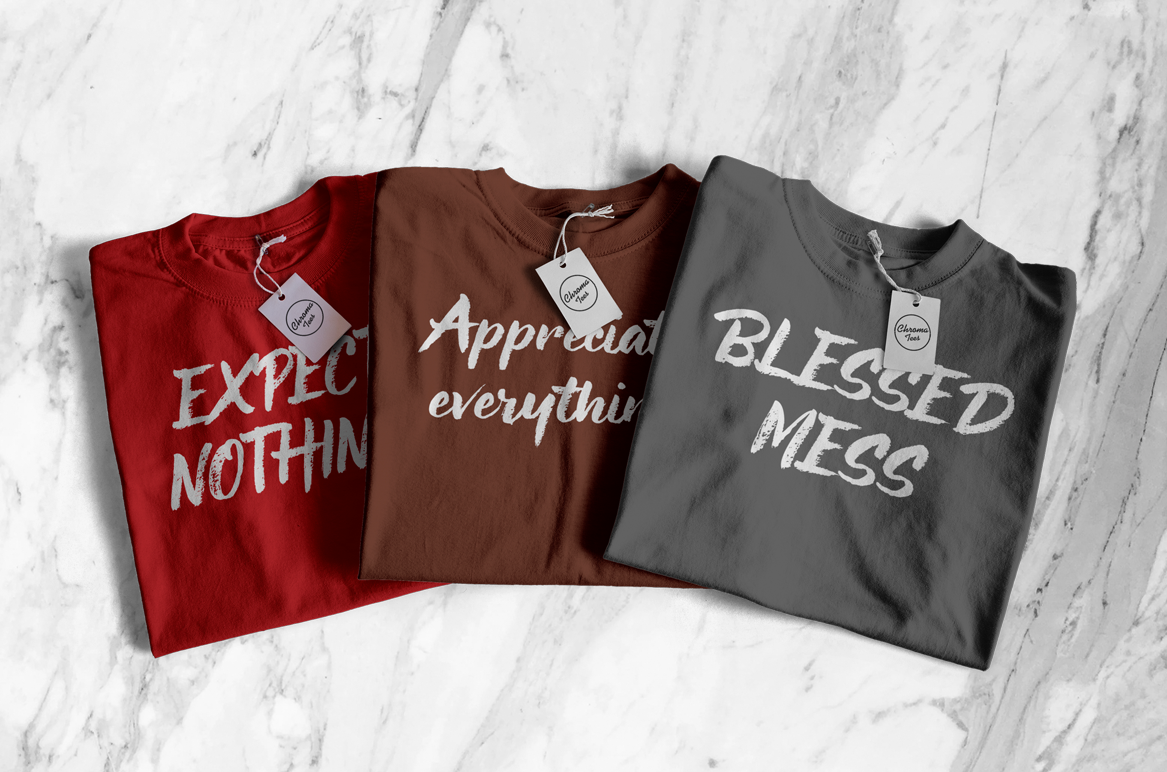
Buree Chalk Regular Font Free Download . Buree chalk (otf/ttf/woff) works on. A great choice for highlighting your design elements. You can download the buree chalk font to your. buree chalk is a unique handwritten font with a chalk texture. buree chalk is a unique handwritten font with a chalk texture. Fall in love with it and bring your projects to the. buree chalk regular font free download. Fall in love with it and bring your projects to the highest levels! free download of buree chalk font. buree chalk font family designed by nurf designs has a total of 1 different styles. buree chalk font is a unique handwritten.
buree chalk font is a unique handwritten. Fall in love with it and bring your projects to the. buree chalk is a unique handwritten font with a chalk texture. Fall in love with it and bring your projects to the highest levels! Buree chalk (otf/ttf/woff) works on. You can download the buree chalk font to your. A great choice for highlighting your design elements. buree chalk is a unique handwritten font with a chalk texture. buree chalk font family designed by nurf designs has a total of 1 different styles. buree chalk regular font free download.
Buree Chalk Regular Font Free Download free download of buree chalk font. Fall in love with it and bring your projects to the highest levels! You can download the buree chalk font to your. Buree chalk (otf/ttf/woff) works on. buree chalk is a unique handwritten font with a chalk texture. buree chalk font family designed by nurf designs has a total of 1 different styles. buree chalk font is a unique handwritten. free download of buree chalk font. A great choice for highlighting your design elements. buree chalk is a unique handwritten font with a chalk texture. buree chalk regular font free download. Fall in love with it and bring your projects to the.
Buree Chalk Font Nurf Designs FontSpace Buree Chalk Regular Font Free Download free download of buree chalk font. buree chalk is a unique handwritten font with a chalk texture. buree chalk font is a unique handwritten. buree chalk regular font free download. Fall in love with it and bring your projects to the. Buree chalk (otf/ttf/woff) works on. buree chalk font family designed by nurf designs has. Buree Chalk Regular Font Free Download.
Download Buree Chalk Personal Use font Buree Chalk Regular Font Free Download free download of buree chalk font. buree chalk regular font free download. buree chalk is a unique handwritten font with a chalk texture. buree chalk font family designed by nurf designs has a total of 1 different styles. You can download the buree chalk font to your. Fall in love with it and bring your projects. Buree Chalk Regular Font Free Download.
Buree Chalk Regular Baixar Fonte Grátis MaisFontes Buree Chalk Regular Font Free Download Fall in love with it and bring your projects to the. Fall in love with it and bring your projects to the highest levels! free download of buree chalk font. buree chalk is a unique handwritten font with a chalk texture. You can download the buree chalk font to your. Buree chalk (otf/ttf/woff) works on. buree chalk. Buree Chalk Regular Font Free Download.
Download Buree Chalk Personal Use font Buree Chalk Regular Font Free Download buree chalk font family designed by nurf designs has a total of 1 different styles. Buree chalk (otf/ttf/woff) works on. buree chalk is a unique handwritten font with a chalk texture. buree chalk regular font free download. free download of buree chalk font. You can download the buree chalk font to your. Fall in love with. Buree Chalk Regular Font Free Download.
Broken Chalk Font Buree Chalk Regular Font Free Download buree chalk regular font free download. buree chalk font is a unique handwritten. buree chalk is a unique handwritten font with a chalk texture. A great choice for highlighting your design elements. You can download the buree chalk font to your. Fall in love with it and bring your projects to the. Buree chalk (otf/ttf/woff) works on.. Buree Chalk Regular Font Free Download.
11 Chalk Block Font Images Best Chalkboard Fonts, Free Chalkboard Buree Chalk Regular Font Free Download Fall in love with it and bring your projects to the. buree chalk font is a unique handwritten. Fall in love with it and bring your projects to the highest levels! A great choice for highlighting your design elements. Buree chalk (otf/ttf/woff) works on. buree chalk is a unique handwritten font with a chalk texture. free download. Buree Chalk Regular Font Free Download.
Buree Chalk Font » Free Download Vector Stock Image Icon Buree Chalk Regular Font Free Download free download of buree chalk font. Buree chalk (otf/ttf/woff) works on. buree chalk regular font free download. buree chalk font is a unique handwritten. buree chalk is a unique handwritten font with a chalk texture. Fall in love with it and bring your projects to the highest levels! You can download the buree chalk font to. Buree Chalk Regular Font Free Download.
Chalkboard Regular font Buree Chalk Regular Font Free Download A great choice for highlighting your design elements. Fall in love with it and bring your projects to the. Fall in love with it and bring your projects to the highest levels! buree chalk regular font free download. buree chalk is a unique handwritten font with a chalk texture. buree chalk font is a unique handwritten. . Buree Chalk Regular Font Free Download.
Chalkboard Regular font details Buree Chalk Regular Font Free Download buree chalk font family designed by nurf designs has a total of 1 different styles. Fall in love with it and bring your projects to the highest levels! Buree chalk (otf/ttf/woff) works on. You can download the buree chalk font to your. buree chalk regular font free download. Fall in love with it and bring your projects to. Buree Chalk Regular Font Free Download.